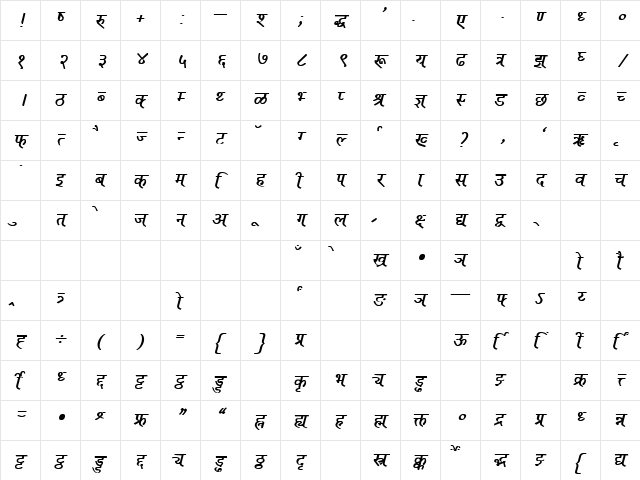
DevLys 110 Bold Italic Font Preview
Design Context for DevLys 110 Typeface
DevLys 110 takes a measured approach to typography — its balanced proportions and neutral character make it a reliable workhorse for both digital and print work. The dynamic lean of this cut emphasises speed and emphasis in any layout. Its bold stroke weight gives it real presence on the page.
Pro Tip: Try DevLys 110 for annotation and caption copy alongside an upright companion — the contrast in angle creates a dynamic but ordered typographic system.